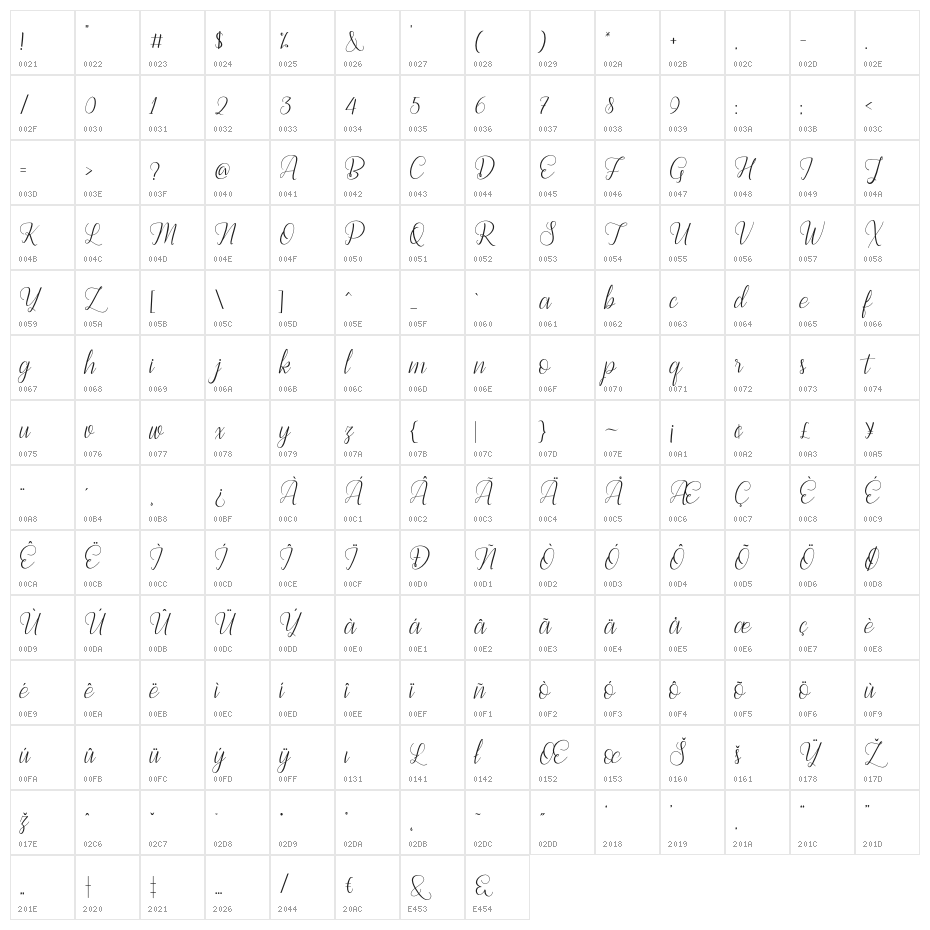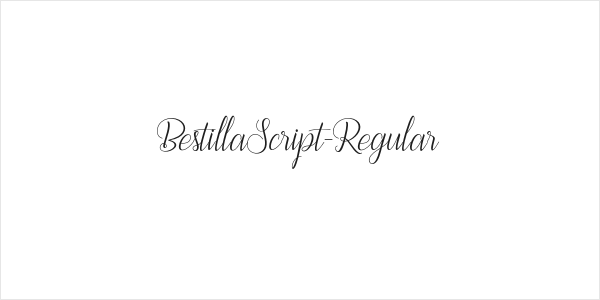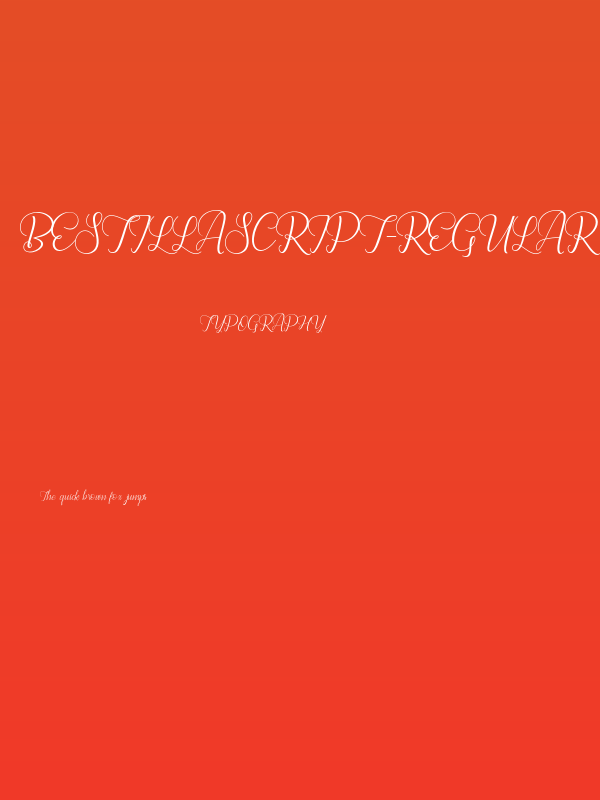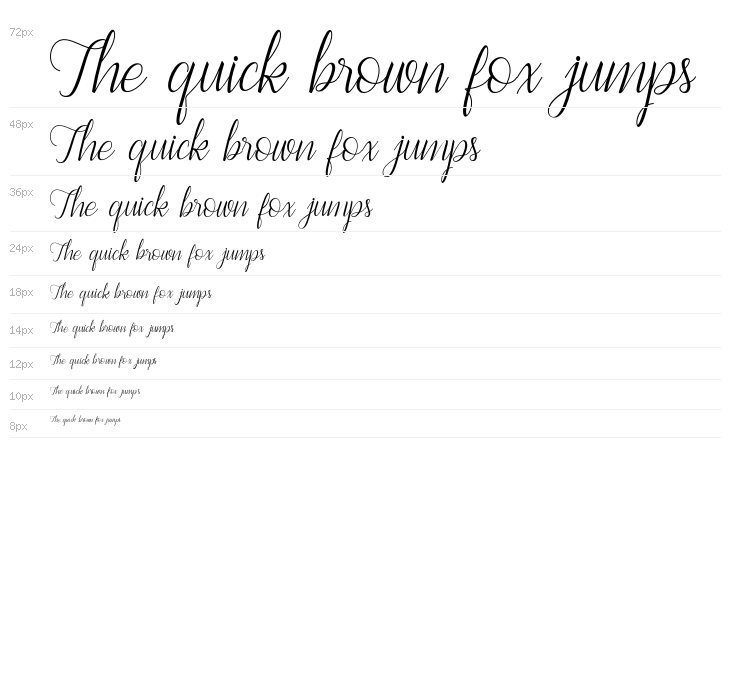
BestillaScript-Regular Font
BestillaScript-Regular Description
This elegant script font features flowing, interconnected letters that exude sophistication and grace. The uppercase characters are adorned with delicate flourishes, while the lowercase letters maintain a smooth, cursive style. The numerals are consistent with the script's aesthetic, offering a cohesive look across all characters. Special characters are thoughtfully designed to match the overall elegance of the font. The thin, graceful strokes and high contrast between thick and thin lines contribute to its refined appearance, making it ideal for formal invitations, branding, and decorative purposes.
| Overall Style | Elegant, Decorative |
| Use Case | Invitations, Branding, Decorative |
| Proposed Projects | Ideal for wedding invitations, elegant branding, decorative signage, and formal event materials. |